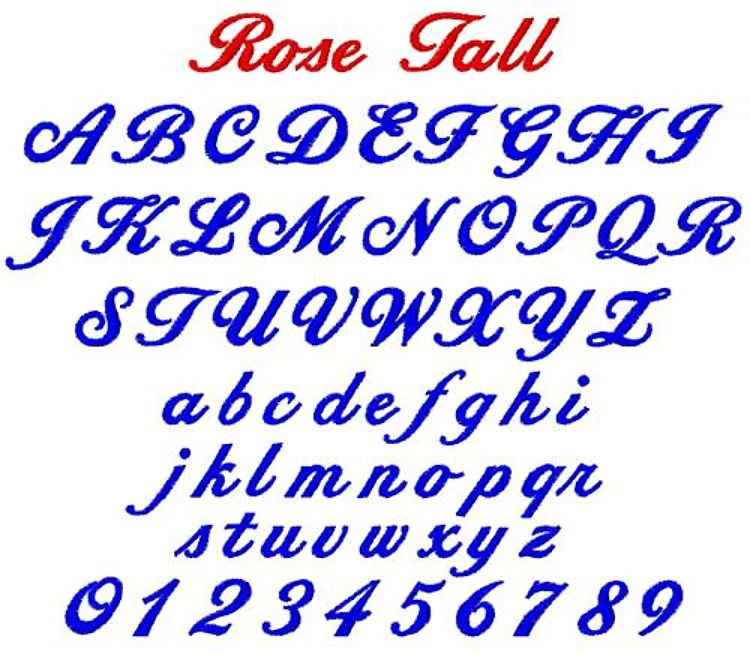
Internet Stitch is happy to present Rose Tall Embrilliance machine embroidery font which has Flowing script machine embroidery font suitable for charming home decor items like throw pillows, showcasing a graceful style in bright red. Available in BX font and Embrilliance formats. included. If you would like to view more embroidery fonts and alphabets please search our embroidery fonts page.